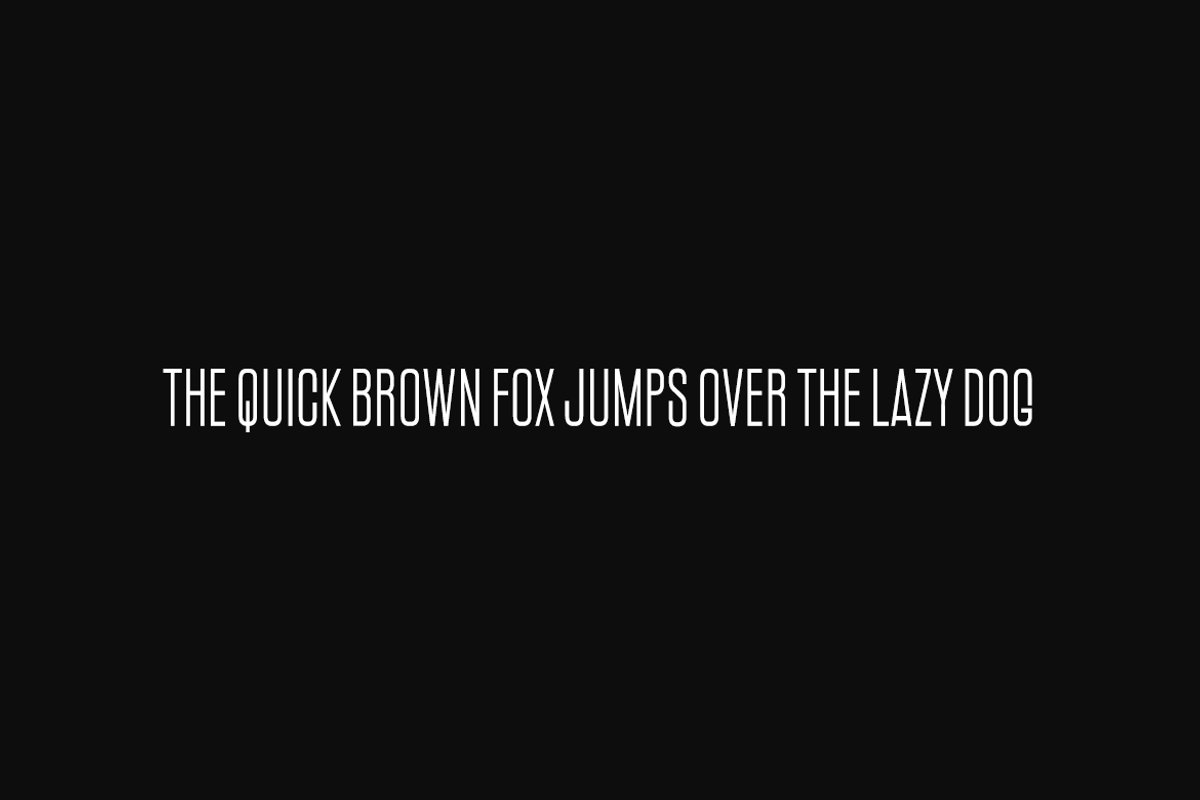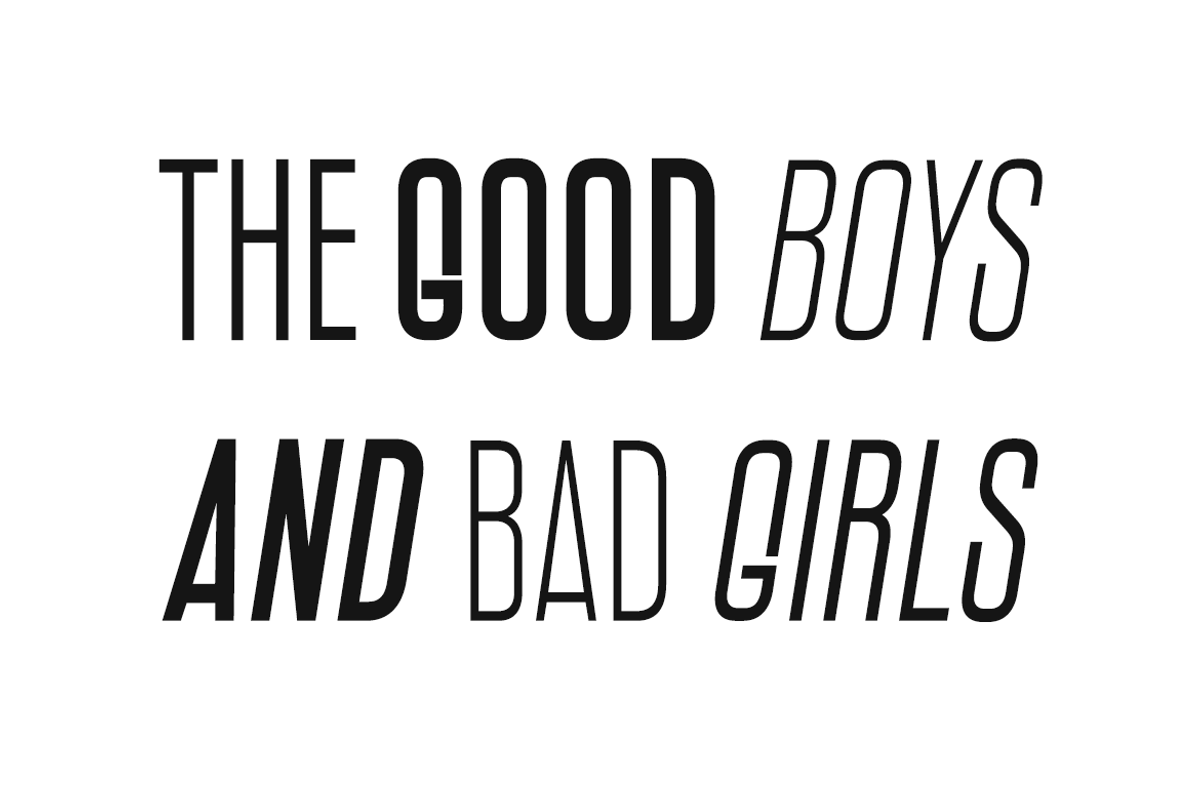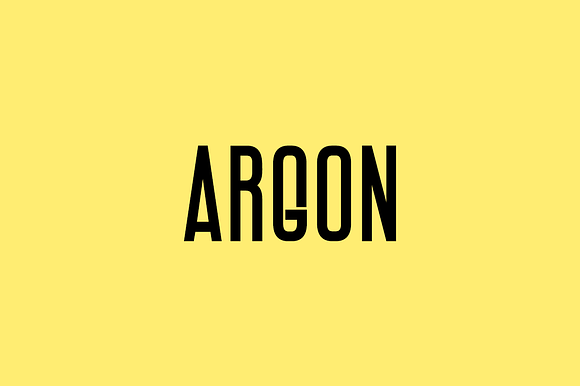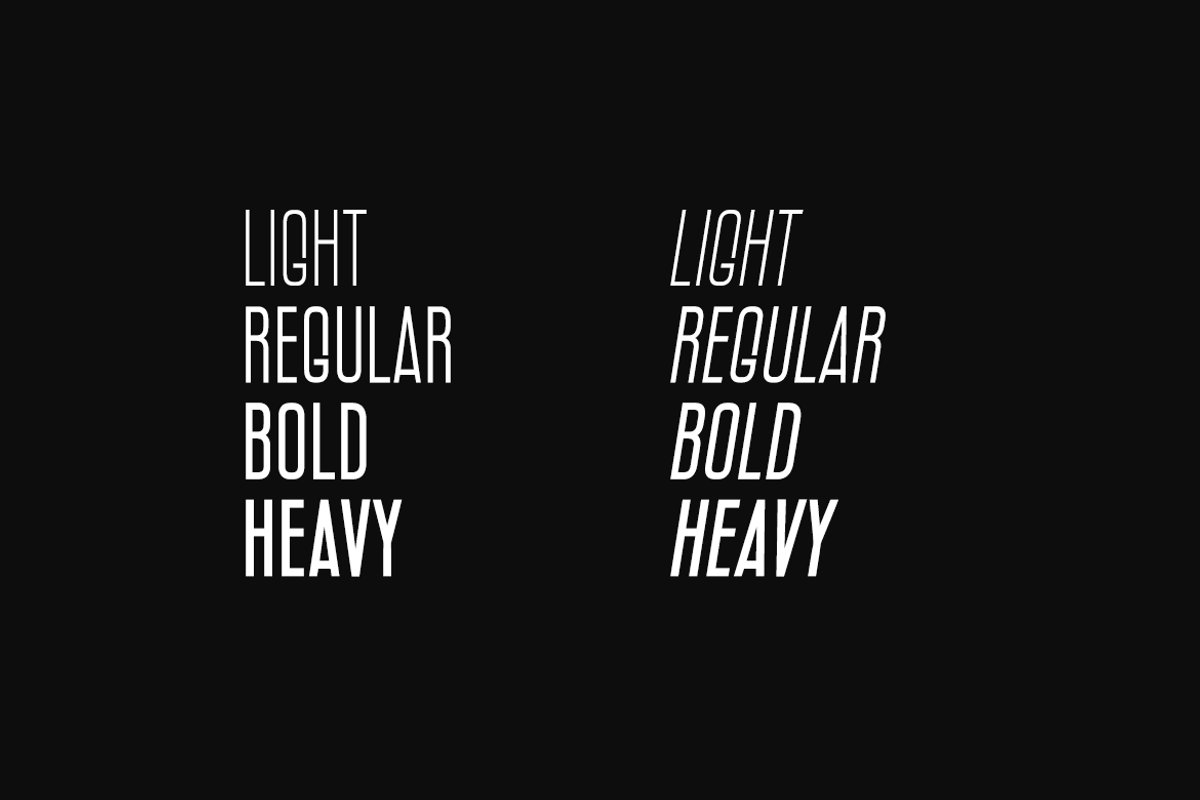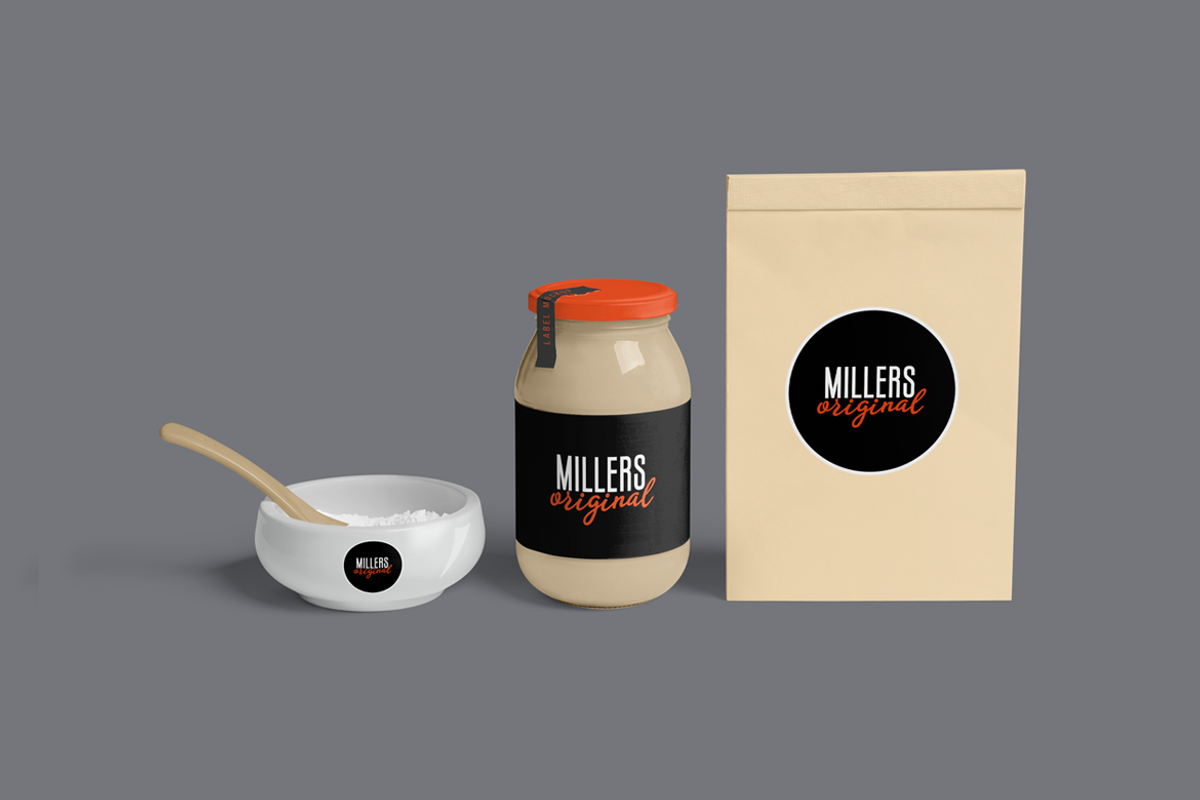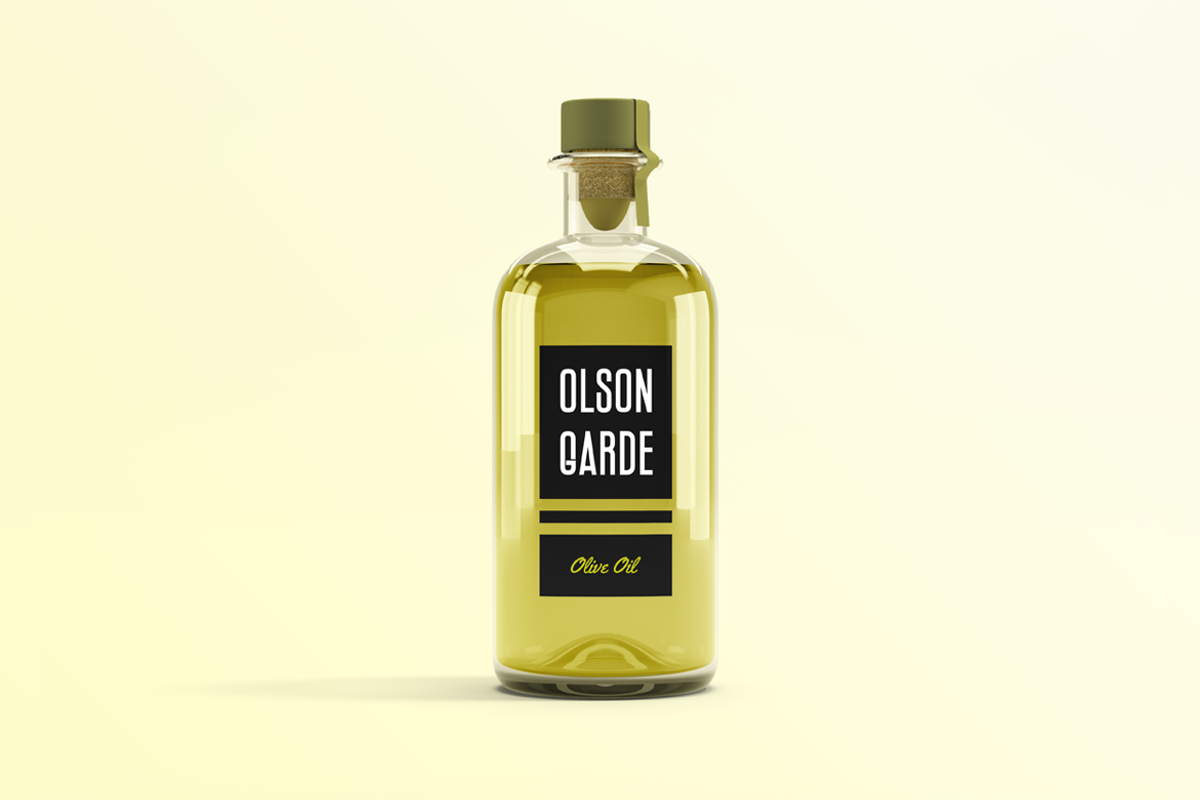
ARGON - Display / Headline Typeface
ARGON is a unique typeface for headlines, big text, branding, logotypes & display usage. This all-caps typeface is also perfect for creating great logos, promotional content and marketing graphics that lift the creative aspects of the design. Please see the examples shown above to get an idea about the capability of this typeface.
ARGON comes with 4 weights (Light, Regular, Bold & Heavy) and Italic versions of each weights. The pack contains Desktop Fonts (OTF, TTF) as well as Web Fonts (EOT, SVG, TTF, WOFF, WOFF2) as options.